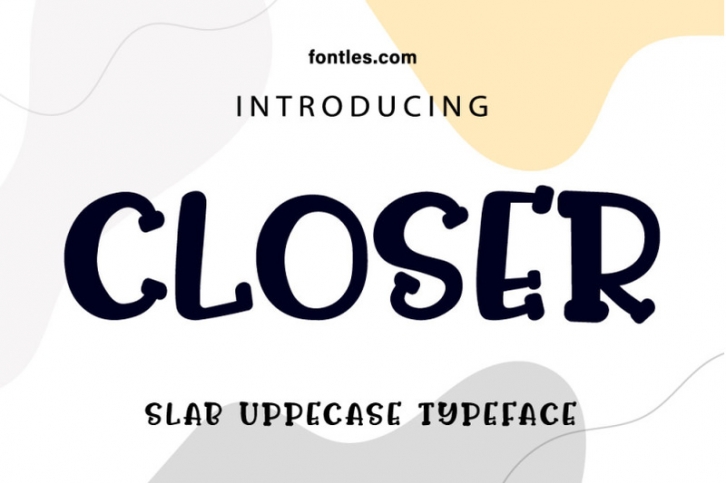
CLOSER is a Slab Uppercase Typeface, dainty and timeless handwritten font. It is the best choice for creating simple yet beautiful logos, branding, T-shirt and quotes. Every letter has a unique and beautiful touch, which will make your designs come alive!.
Main Features:
- Uppercase letters
- Punctuation and special characters